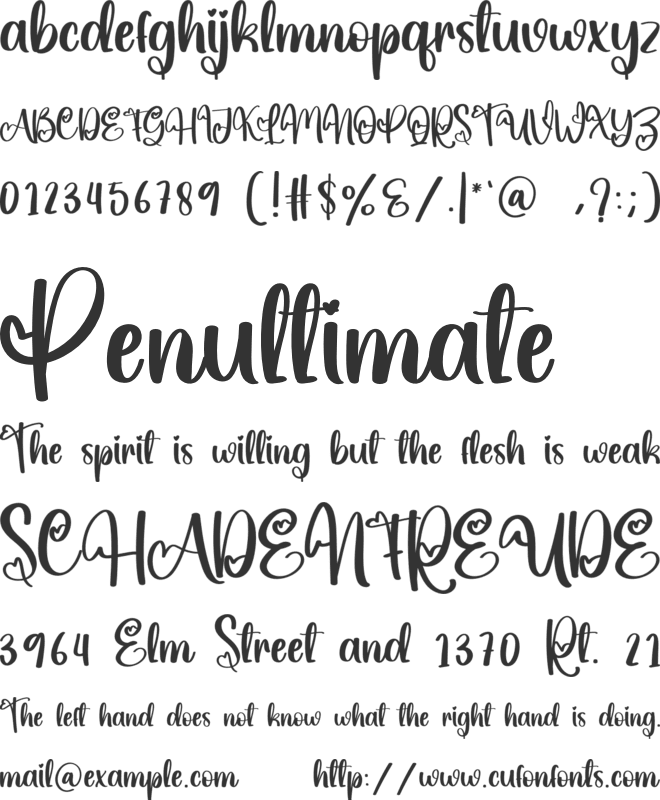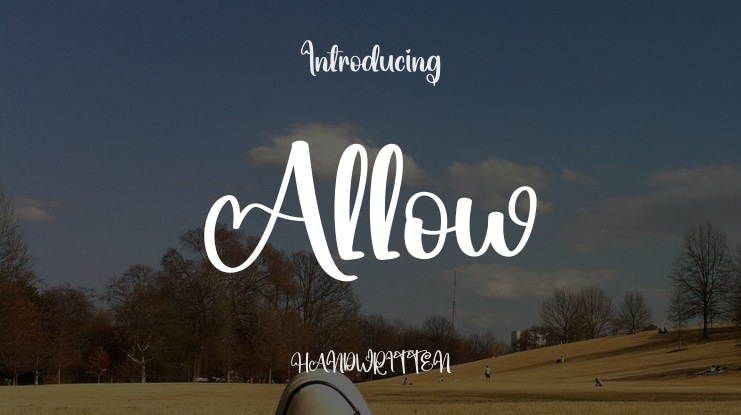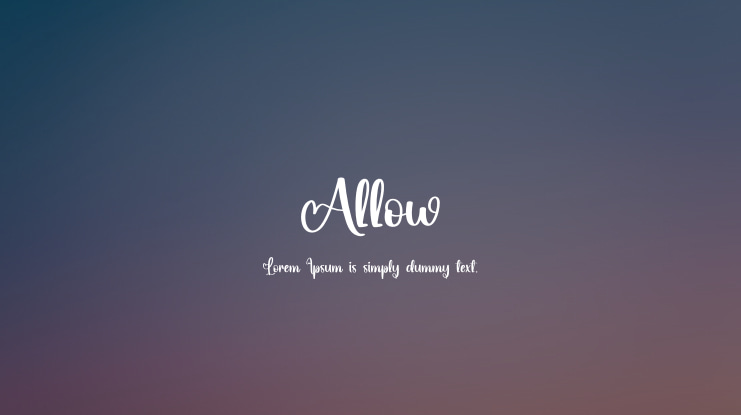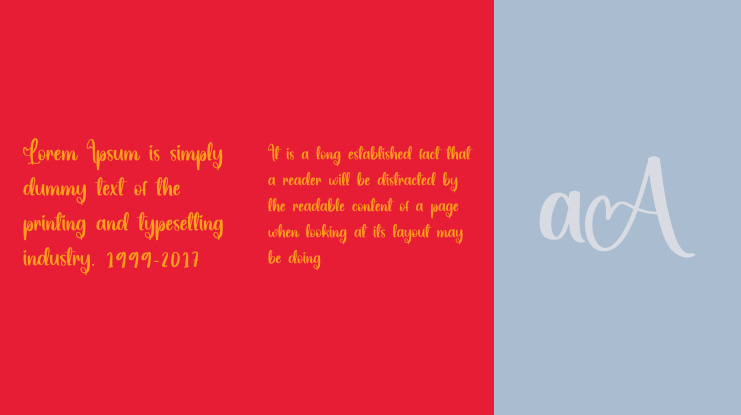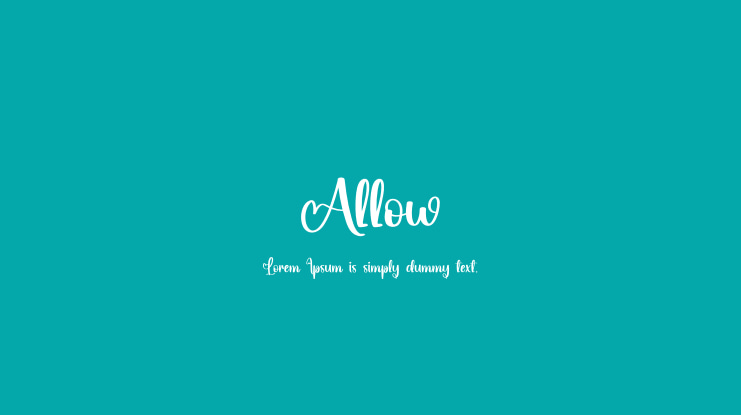
With our cutting-edge font styles, you can create stunning wall displays, elegant wedding invitations, captivating social media logos, eye-catching advertisements, sleek product packaging, exquisite labels, professional photography watermarks, chic stationery, and any project that demands the beauty of handwritten content.